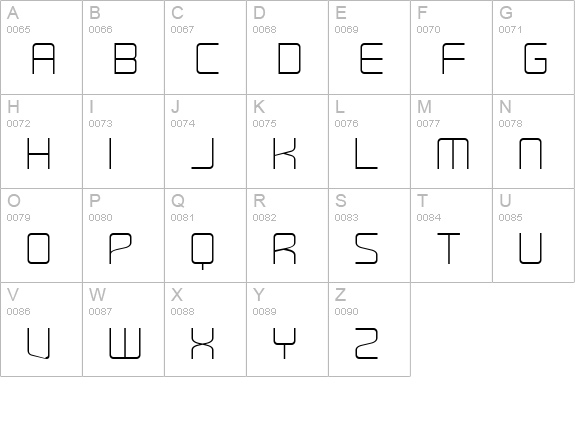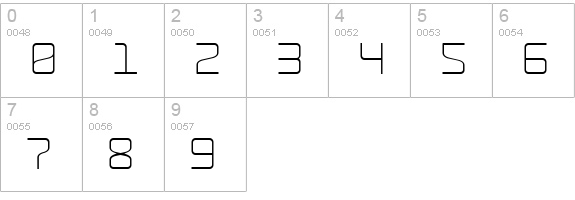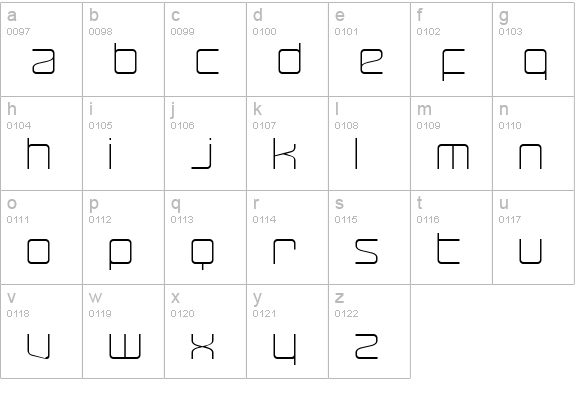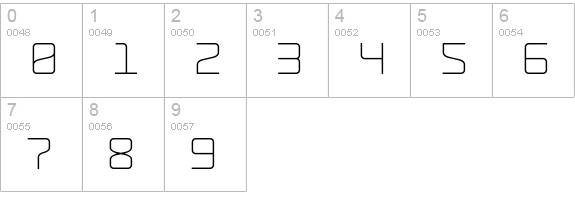
RaveParty Thin is a delicate, low-contrast variant in the RaveParty typeface family \xE2\x80\x94 well suited to fashion editorial, minimal branding, and high-contrast display.
RaveParty Thin font is a vibrant and energetic typeface that exudes a sense of fun and excitement. Its sleek and stylish design is perfect for making a statement on party invitations, flyers, posters, and more. The thin weight of this font adds a touch of sophistication while still maintaining a playful and dynamic look. Best of all, RaveParty Thin font is available for free download at FontsMarket.com. Whether you're organizing a rave, nightclub event, or simply want to add a touch of flair to your designs, this font is sure to grab attention and make your text stand out. Don't miss out on this fantastic opportunity to enhance your creative projects with this fantastic font – download RaveParty Thin today!